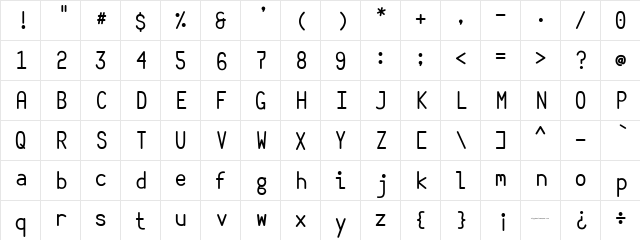
Belshaw Donut Robot Regular
Design Context for Belshaw Donut Robot Typeface
Belshaw Donut Robot is a composed and adaptable typeface that performs quietly and consistently across a wide range of design contexts.